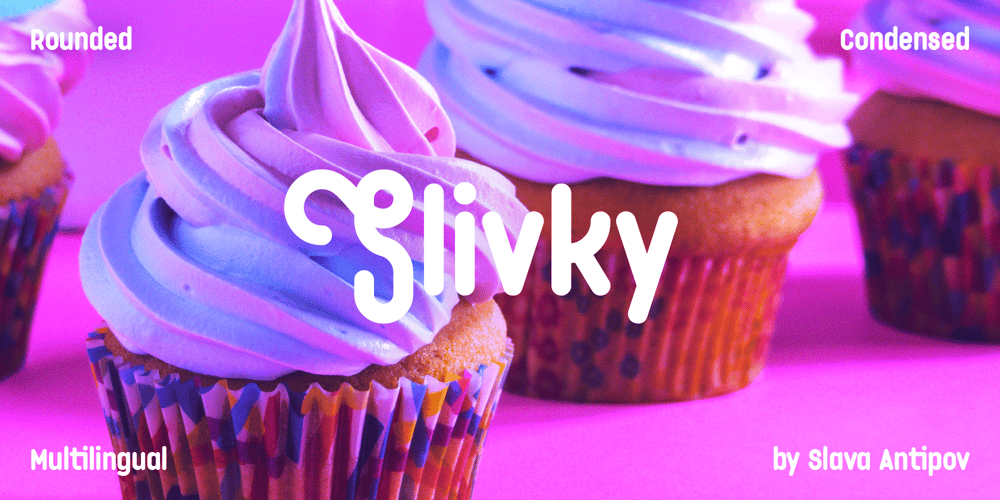
Slivky
Slivky font
Slivky Font Family was designed by Slava Antipov and published by Slava Antipov. Slivky contains 6 styles and family package options. Slivky is a condensed rounded font family. It includes 6 styles: All Caps, All Caps Swash, Regular, Regular Swash, Small Caps, Small Caps Swash.Swash fonts have large capitals in the style of handwritten / script fonts. This cute rounded font is quite versatile due to the different styles. Good for logos, packaging, posters, advertisements and more.